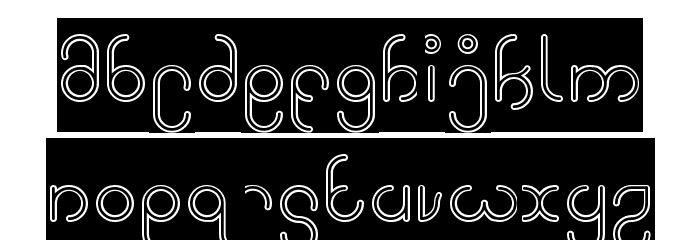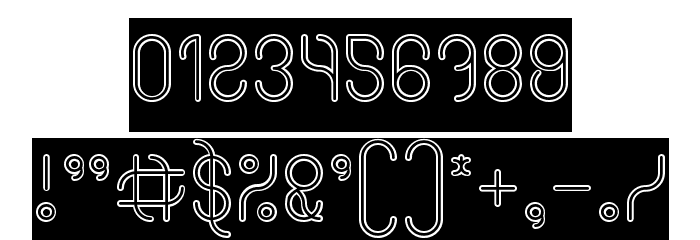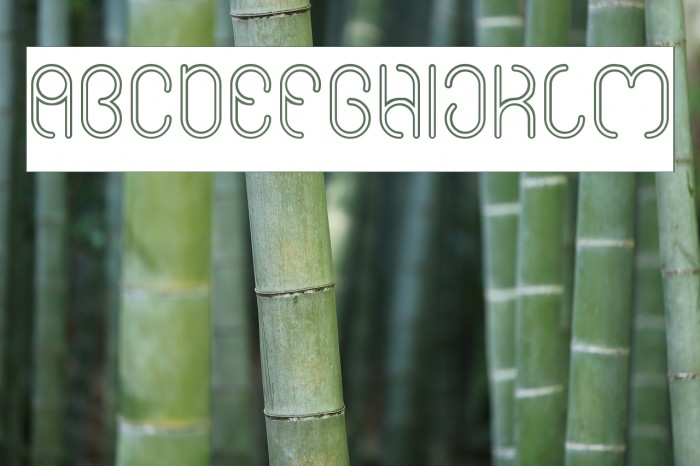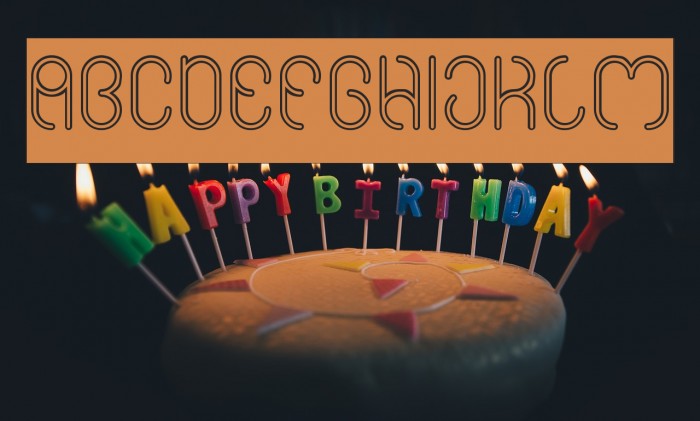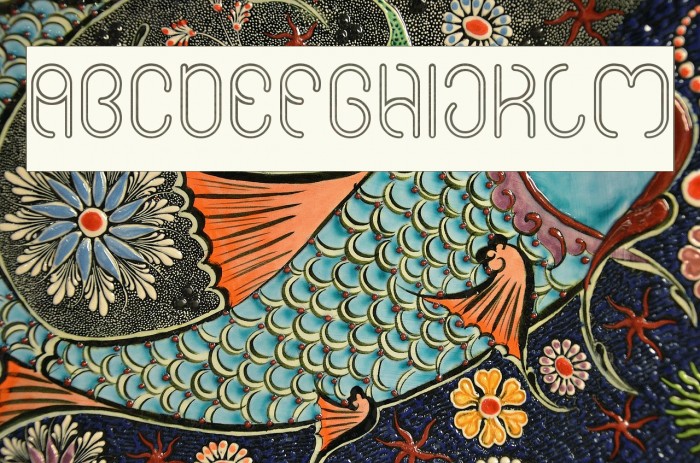
High In love-Hollow-Inverse Font
This font features a unique hollow design with an inverse style, where the characters are outlined with a consistent stroke width, creating a modern and futuristic appearance. The letters are rounded and smooth, with a playful yet sophisticated look. The uppercase and lowercase letters maintain a consistent style, with the lowercase being slightly smaller and more compact. Numbers and special characters follow the same design principles, ensuring uniformity across all glyphs. The font's distinct hollow effect makes it stand out, ideal for creative and artistic projects.
A modern, hollow, and inverse font with a playful yet sophisticated style.
- Proposed Projects: Ideal for branding, logos, posters, and digital art projects that require a modern and creative touch.
- Use Case: Logos, Posters, Digital Art